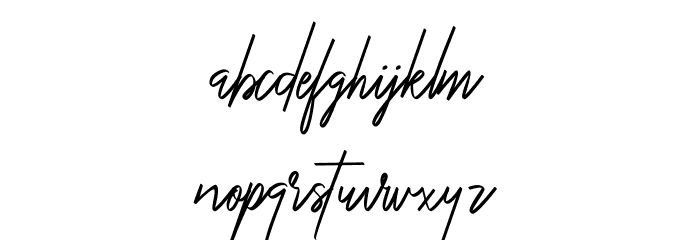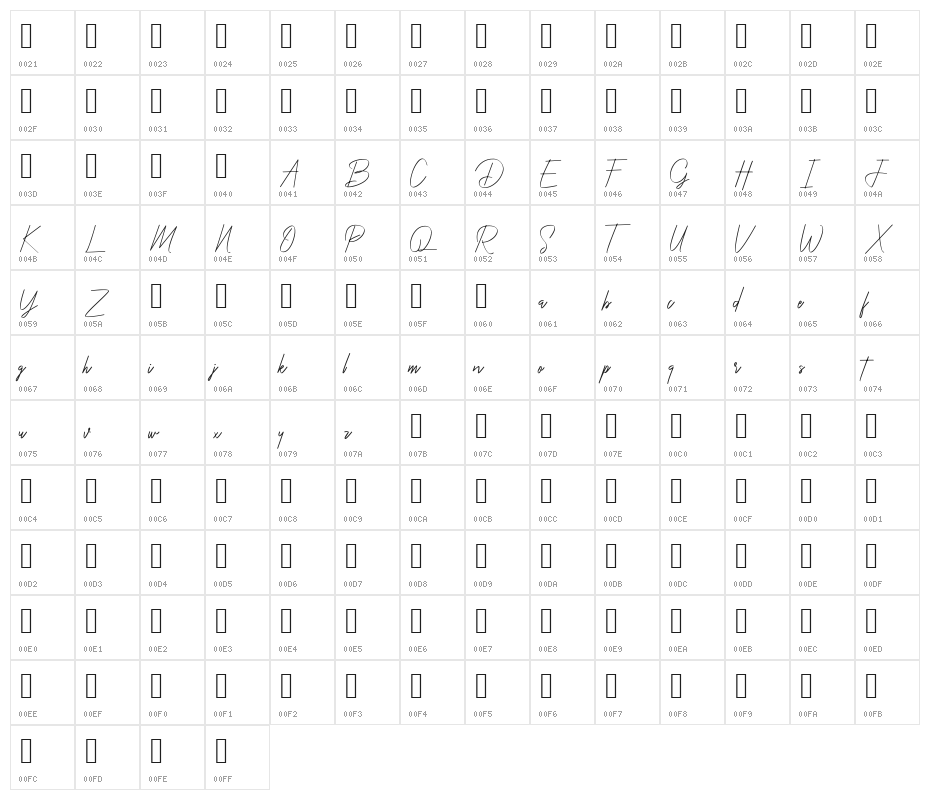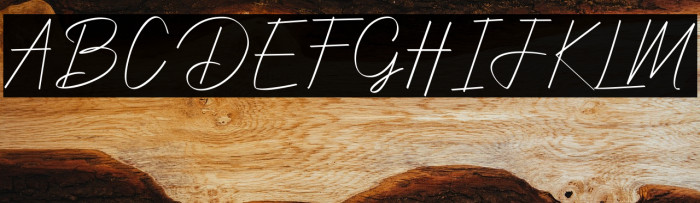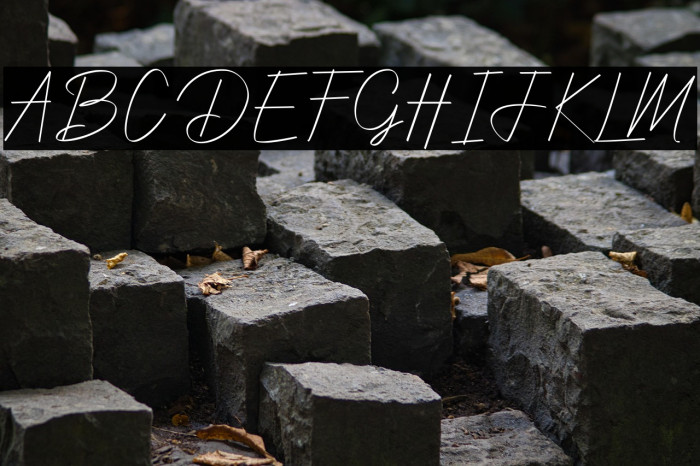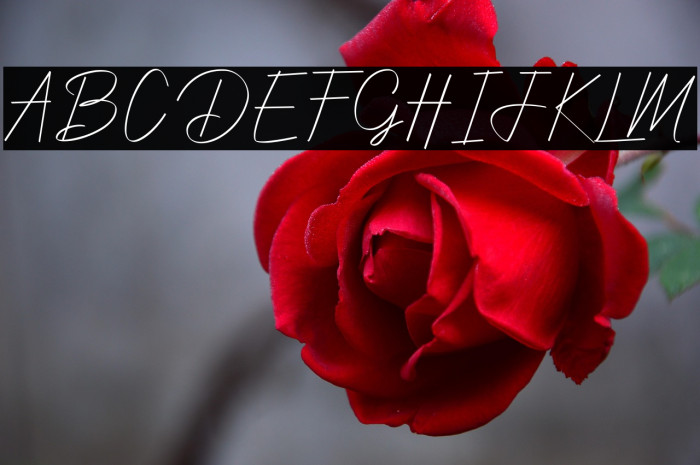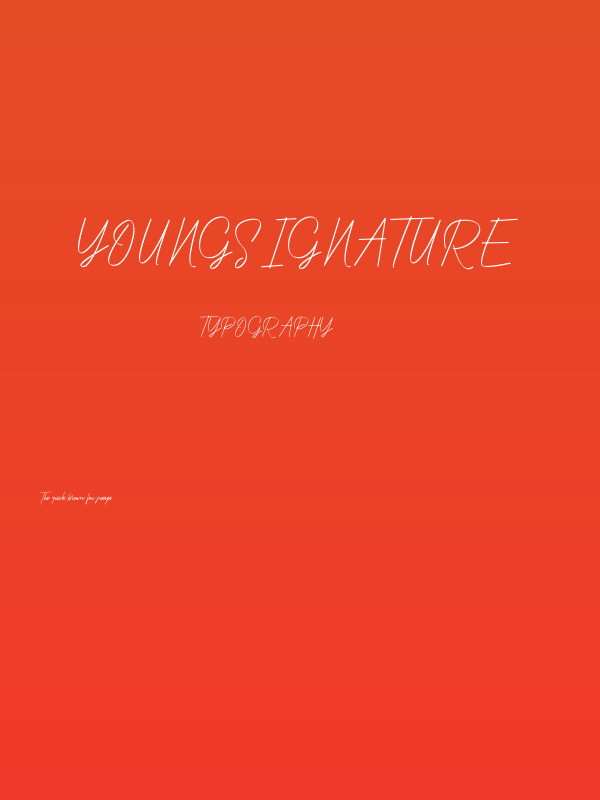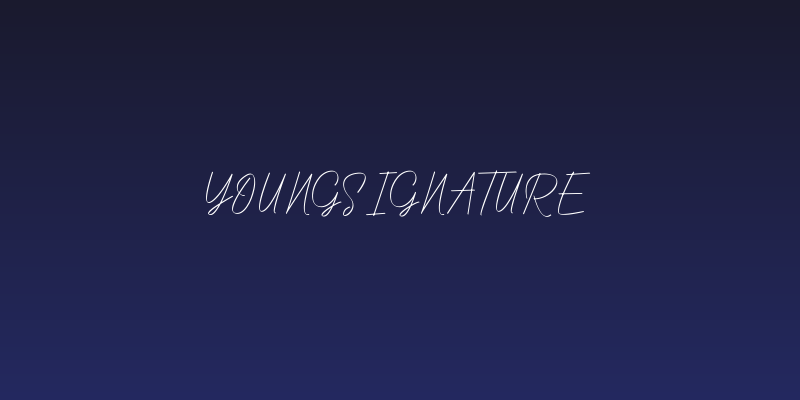
YoungSignature Font
This font embodies a modern, handwritten style with a casual and elegant flair. The uppercase letters are elongated and slightly slanted, giving a sense of movement and fluidity. The lowercase letters are more compact, maintaining a consistent flow that mimics natural handwriting. The strokes are thin, with a medium contrast between thick and thin lines, adding to the font's delicate appearance. This font lacks numeric and special character representations, focusing solely on alphabetic characters.
A modern, handwritten font with elegant, flowing strokes.
- Proposed Projects: Ideal for personal branding, invitations, greeting cards, and social media graphics where a personal touch is desired.
- Category: Handwritten
- Weight: Light
- Use Case: Logos, Invitations, Personal Branding